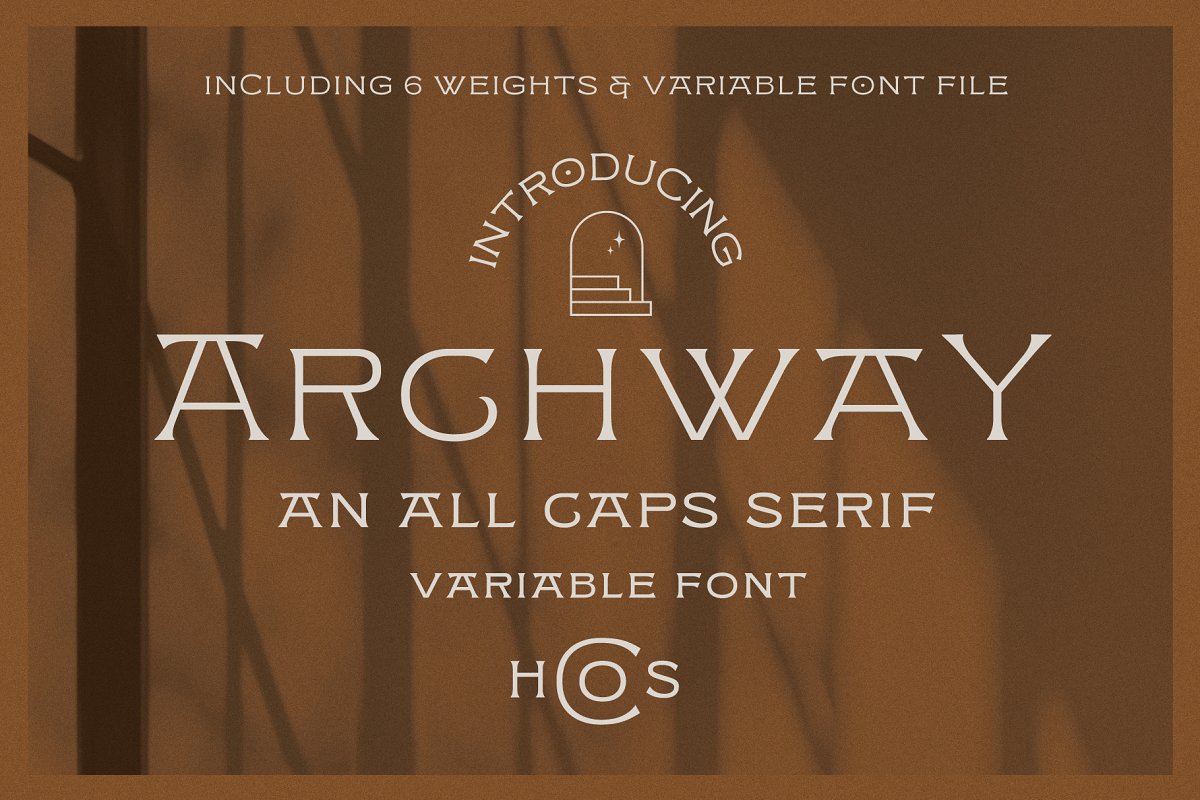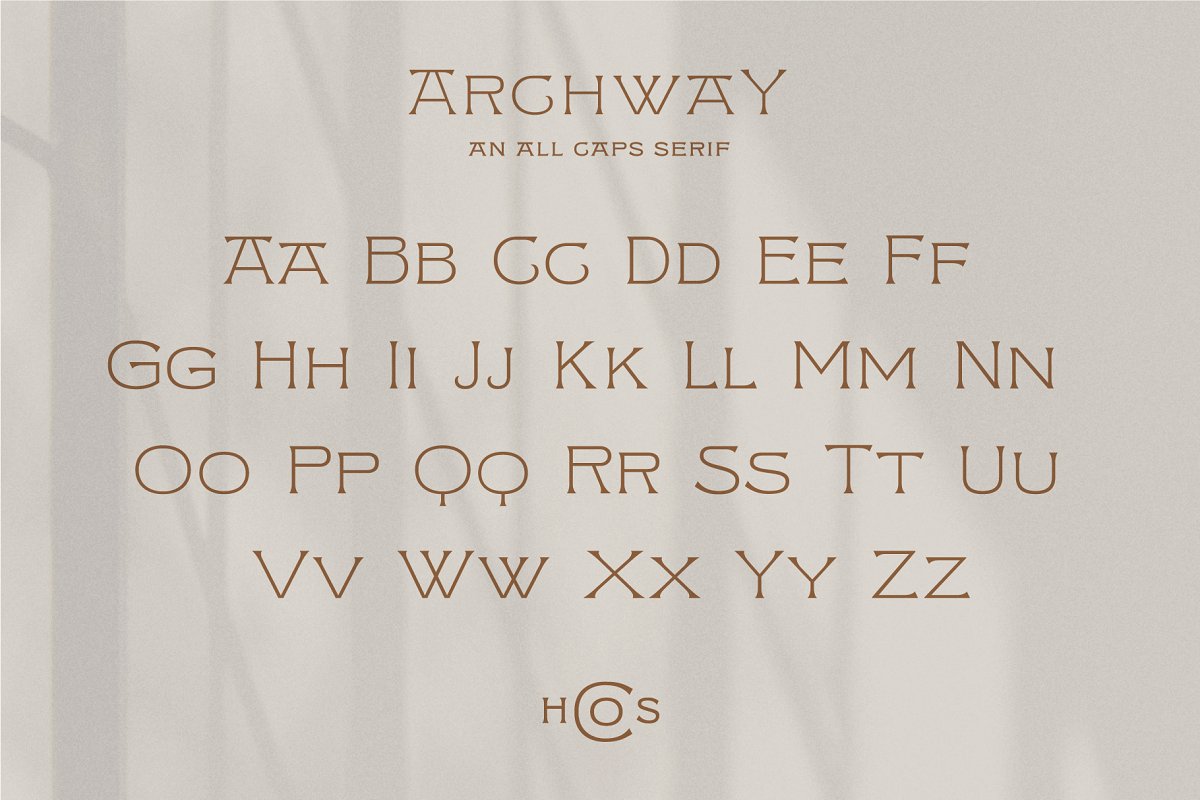
About the ARCHWAY Font
ArchwayArchway is an all caps serif typeface with both large & small caps in place of uppercase & lowercase characters, This typeface comes with 6 weights and a variable typeface option allowing you to use a toggle to manually adjust the weight of the typeface, What’s Included?Web Font FilesWestern European Character Set6 Weights1 Variable Typeface File